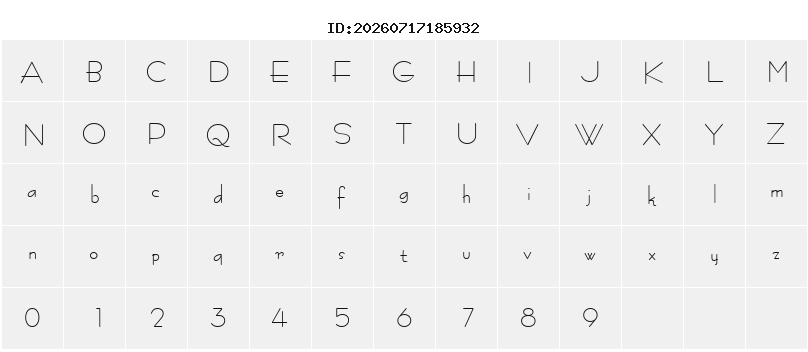
Berlin.ttf is a modern, elegant sans-serif font designed for ultimate readability and visual harmony. Perfect for branding, headlines, web design, and print materials.